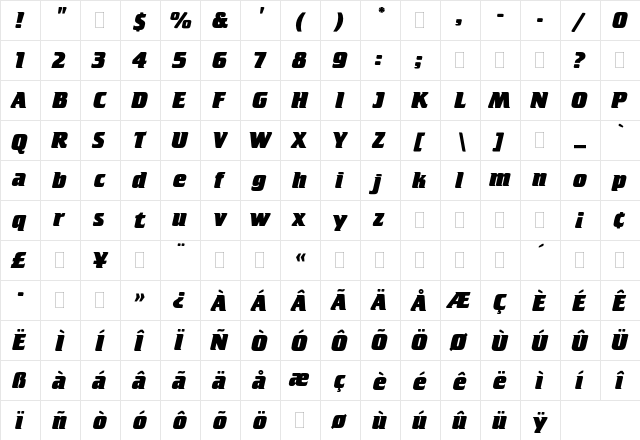
Crillee Extra Bold Italic Plain
Design Context for Crillee Extra Bold Italic Typeface
Crillee Extra Bold Italic is a composed and adaptable typeface that performs quietly and consistently across a wide range of design contexts. The slanted form adds forward momentum and visual energy. Its bold stroke weight gives it real presence on the page.
Pro Tip: Try Crillee Extra Bold Italic for annotation and caption copy alongside an upright companion — the contrast in angle creates a dynamic but ordered typographic system.